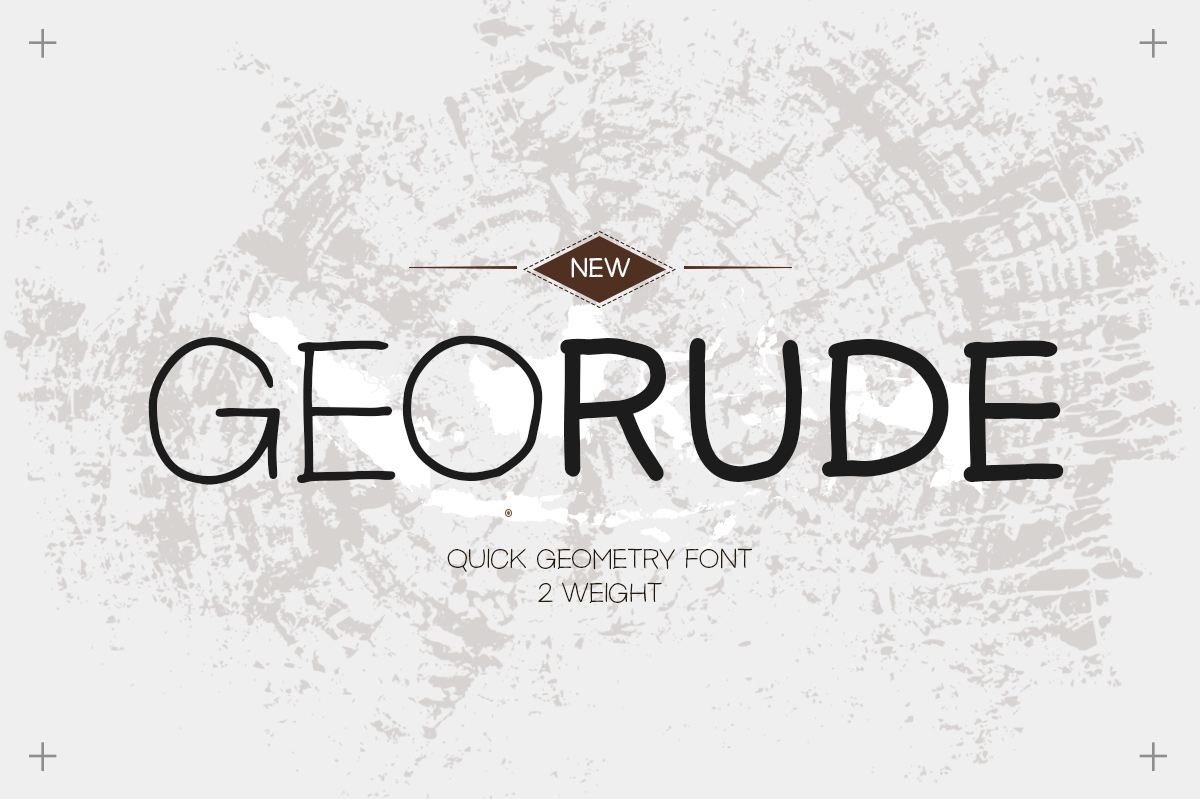
Georude Font
Perfect for headlines, branding, posters, packaging, and editorial designs.
The Georude Font excites designers with its strong, modern sans-serif style that combines clean lines with a subtle rugged edge, giving projects a bold and contemporary feel.
Font families: Georude Regular, Georude Bold, Georude Italic.
One of the key strengths of Georude Font is its perfect balance of simplicity and character, allowing it to stand out while maintaining excellent readability across digital and print media.
In branding, Georude conveys strength, professionalism, and innovation. It pairs well with minimalist designs, bold color schemes, and clean layouts to create a memorable and powerful identity.
For digital projects, this font enhances website headers, social media graphics, and digital advertisements, ensuring your message is clear and commanding.